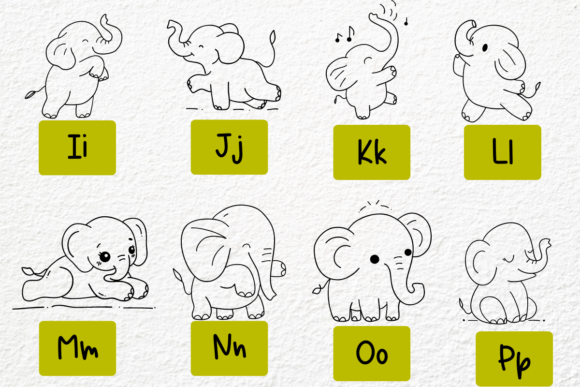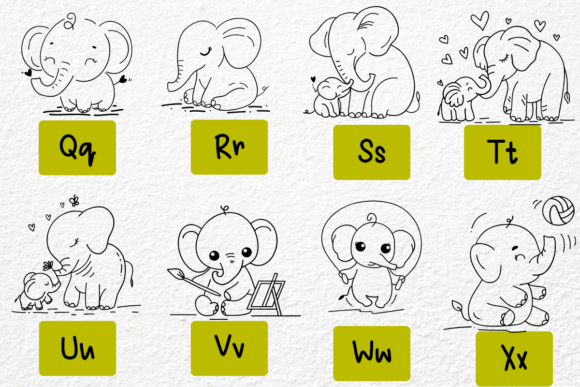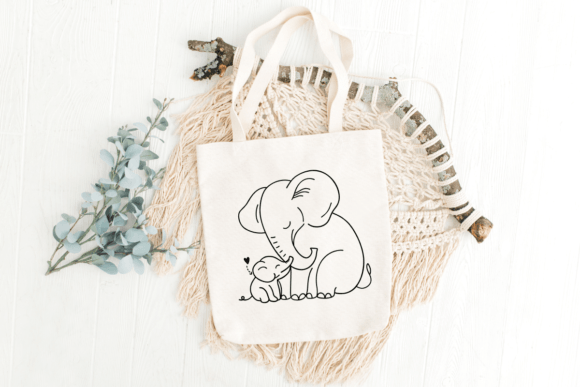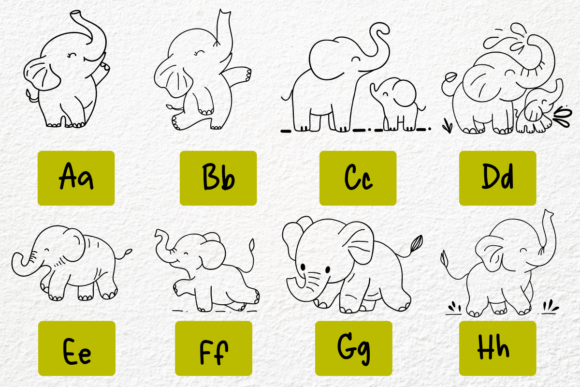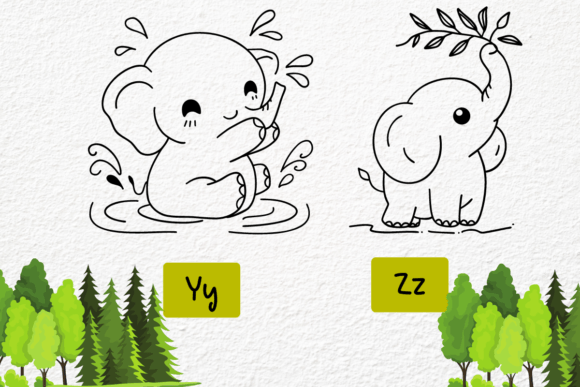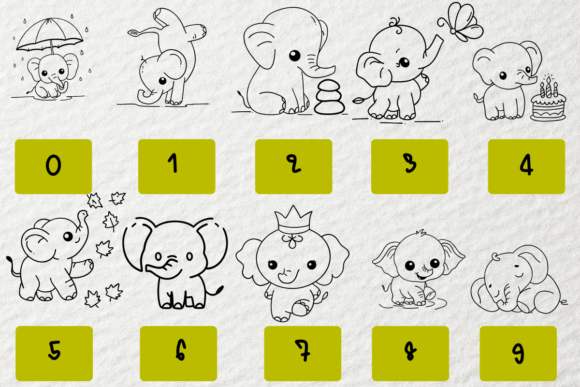
Discover the Majestic World of Elephants with Elephants Font
Are you a designer, crafter, or enthusiast looking for a unique and fascinating font to elevate your projects? Look no further than Elephants Font, a delightful collection of elephant symbols in diverse styles and poses. This charming dingbat font is perfect for nature-themed projects, educational materials, and anyone who loves these majestic creatures.
Exploring the Features of Elephants Font
Elephants Font is a carefully curated set of elephant symbols, ranging from simple outlines to intricate designs. This versatile font offers a wide range of illustrations, ensuring that you can find the perfect elephant to suit your project’s tone and style. Whether you’re creating a nature-inspired poster, a educational worksheet, or a craft project, Elephants Font has got you covered.
Diverse Styles and Poses
One of the standout features of Elephants Font is its incredible variety of styles and poses. You’ll find elephants depicted in different settings, from playful and whimsical to majestic and serene. The font includes:
- Simple outlines and silhouettes for a minimalist look
- Intricate designs with detailed textures and patterns
- Elephants in various poses, such as standing, sitting, and walking
- Illustrations of elephant families, herds, and social groups
Ideal for Nature-Themed Projects and Educational Materials
Elephants Font is an excellent choice for projects that focus on nature, wildlife, and conservation. The font’s illustrations are not only visually appealing but also educational, making it perfect for:
- Creating informative posters and brochures about elephant habitats and conservation
- Designing engaging educational materials, such as worksheets and activity sheets
- Developing crafts and DIY projects, like cards, gift tags, and scrapbooking pages
Tips for Using Elephants Font in Your Projects
To get the most out of Elephants Font, here are some tips to keep in mind:
- Experiment with different font sizes and styles to create visual interest
- Combine elephant illustrations with other natural elements, like leaves, flowers, and trees
- Use the font’s illustrations as a starting point for your own custom designs
- Consider pairing Elephants Font with other nature-themed fonts and graphics for a cohesive look
Why Choose Elephants Font?
With so many fonts available, why choose Elephants Font? Here are just a few reasons:
- Unique and engaging illustrations that will capture your audience’s attention
- Versatile and adaptable design, suitable for a wide range of projects
- High-quality graphics that will look great in both print and digital formats
Get Creative with Elephants Font
| Font Name | Elephants Font |
| Author | Petal Pixels |